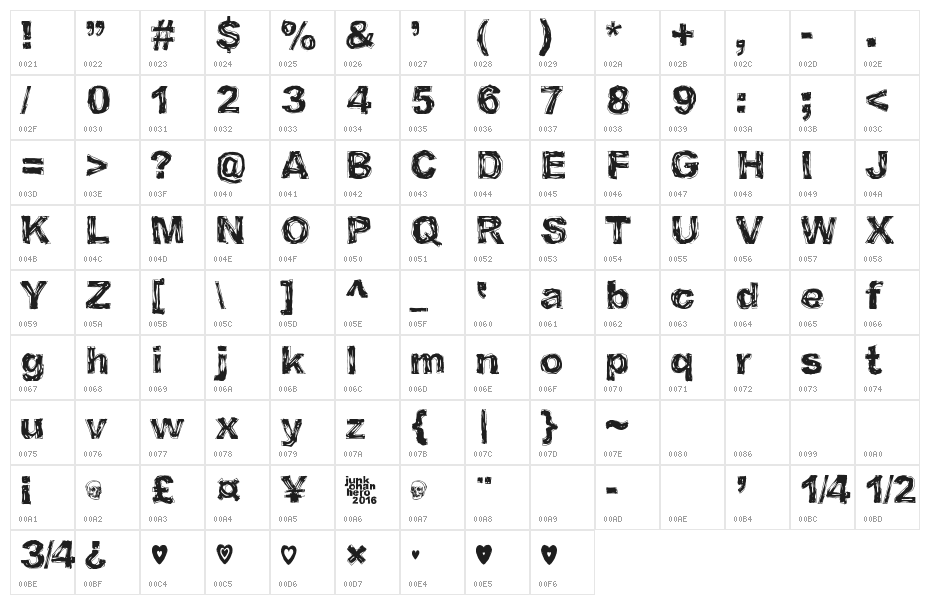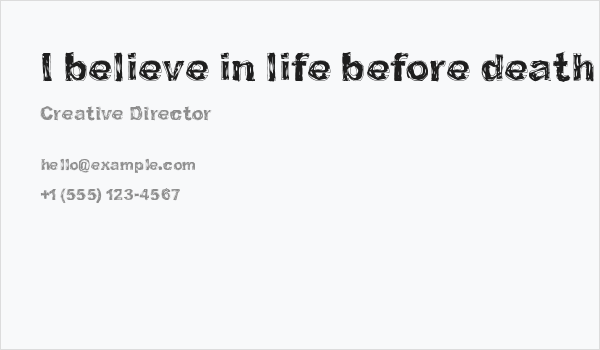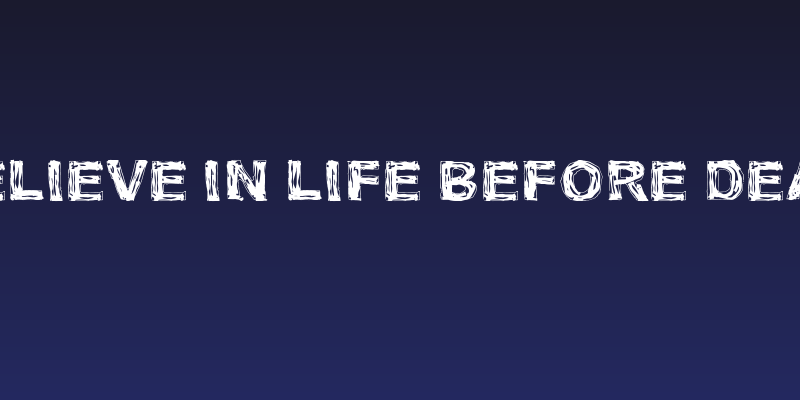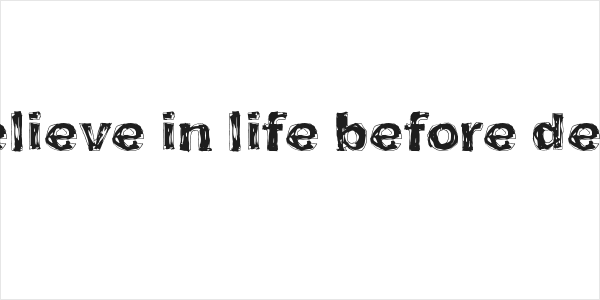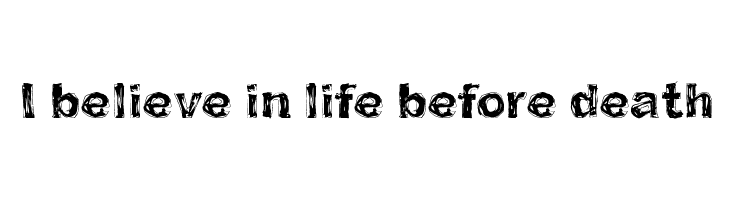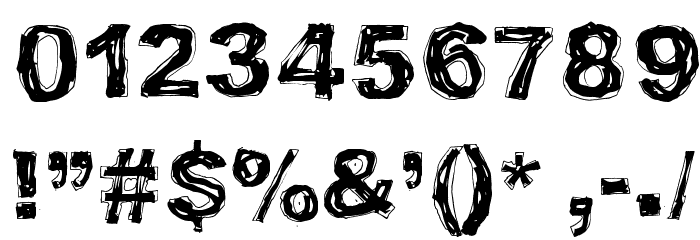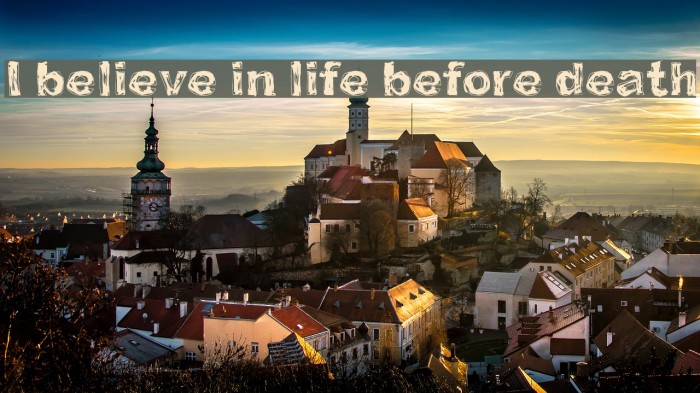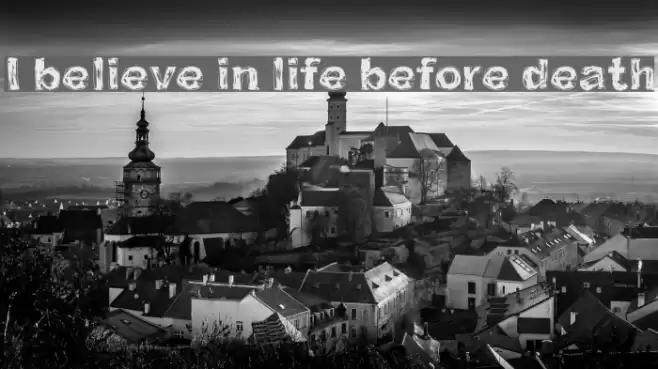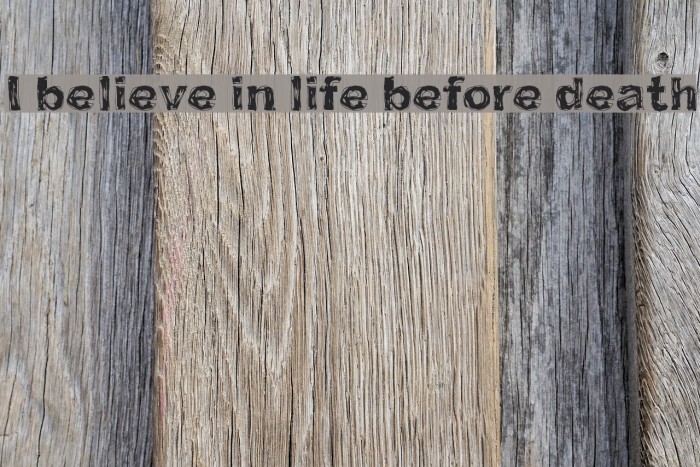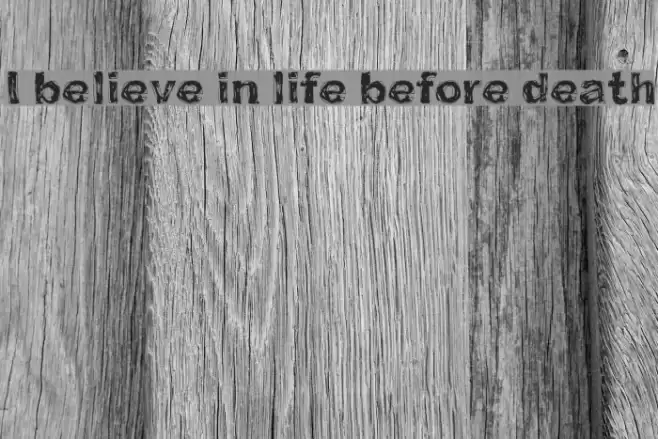
I believe in life before death Font
I believe in life before death Description
This font features a bold, hand-drawn style with a rough, sketch-like appearance. Each character is uniquely crafted with uneven edges and a textured fill, giving it a dynamic and energetic feel. The uppercase and lowercase letters maintain a consistent style, while the numerals and special characters complement the overall aesthetic. This font's irregular strokes and playful design make it stand out, perfect for projects that require a touch of creativity and individuality.
| Use Case | Headlines, Logos, Artistic projects |
| Proposed Projects | Ideal for posters, album covers, creative branding, and artistic projects. |